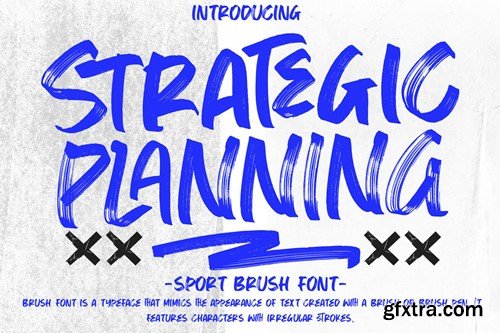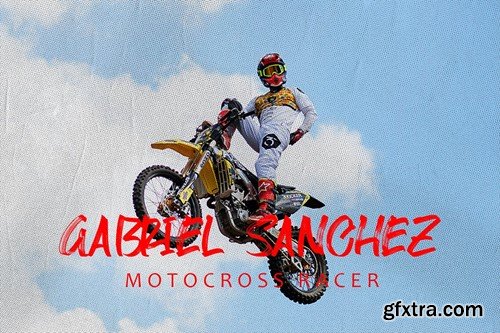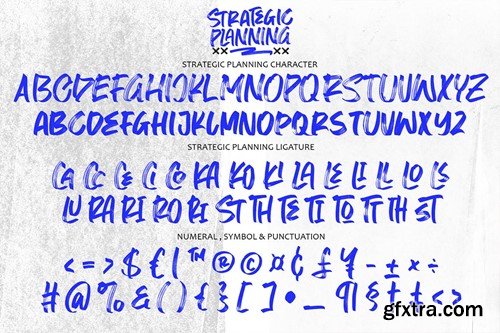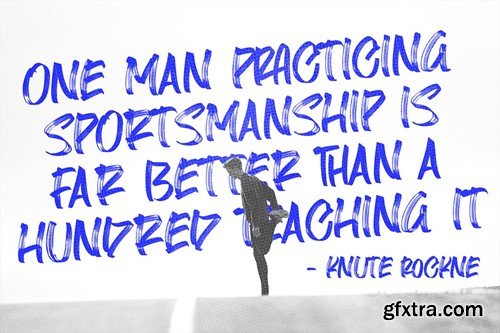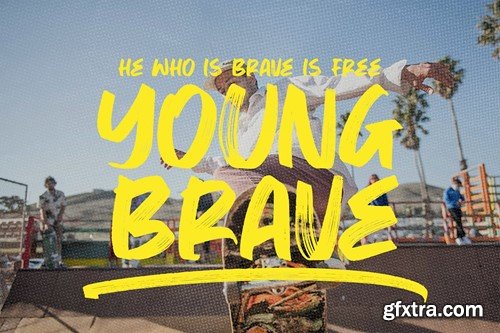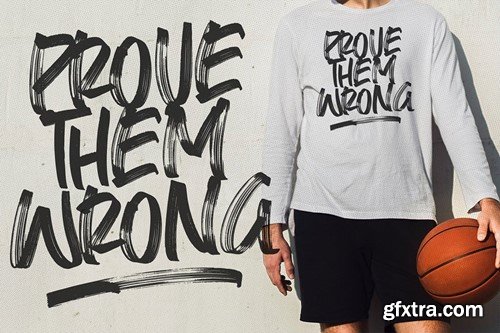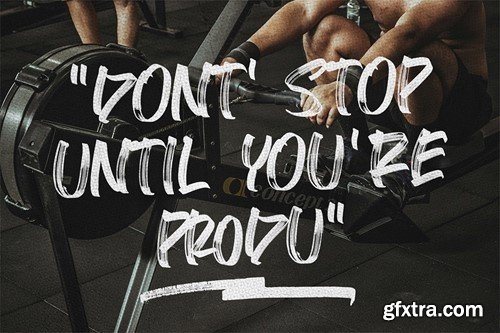
战略规划 - Sport Brush Font LAV7XSU
Strategic Planning Sport Brush Font is a typeface inspired by the energetic and dynamic aesthetics often associated with sports. This style of font typically combines the boldness of brush strokes with athletic-themed design elements, resulting in a typeface that exudes power, movement, and strength. Here's a breakdown of its key features and benefits: Key Features: -Bold and Impactful: Sport brush fonts are characterized by their bold and impactful letterforms, which command attention and convey a sense of strength and vigor. -Brush Texture: These fonts simulate the texture and characteristics of brush strokes, adding a dynamic and handcrafted feel to the typography. -Athletic-Inspired Design: Sport brush fonts often incorporate design elements and motifs commonly associated with sports, such as swooshes, lines, and geometric shapes. These elements reinforce the athletic theme of the font and add visual interest. -Dynamic Letterforms: The letterforms in sport brush fonts are designed to convey movement and energy, with dynamic shapes and flourishes that evoke the speed and intensity of athletic activities. -Versatility: While primarily associated with sports-themed designs, sport brush fonts can be versatile and adaptable to a variety of applications, including posters, banners, logos, apparel, and more. Benefits: -Captivating Visual Impact: Sport brush fonts are highly effective at grabbing the viewer's attention and making a strong visual statement, making them ideal for designs that need to stand out in competitive environments. -Expressive Typography: These fonts allow designers to express the excitement, passion, and adrenaline associated with sports through typography, enhancing the overall theme and message of the design. -Versatility: Sport brush fonts can be used across a wide range of design projects related to sports and athletics, including branding, advertising, event promotions, and team merchandise. -Flexibility in Design: Sport brush fonts offer designers flexibility in creating custom designs and compositions, allowing for creative experimentation and customization to match the specific needs of each project. -Engagement and Connection: By leveraging the dynamic and energetic qualities of sport brush fonts, designers can create designs that resonate with audiences on an emotional level, fostering a sense of excitement and connection. In summary, a Sport Brush Font is a powerful and versatile typeface that embodies the spirit of athleticism and sportsmanship